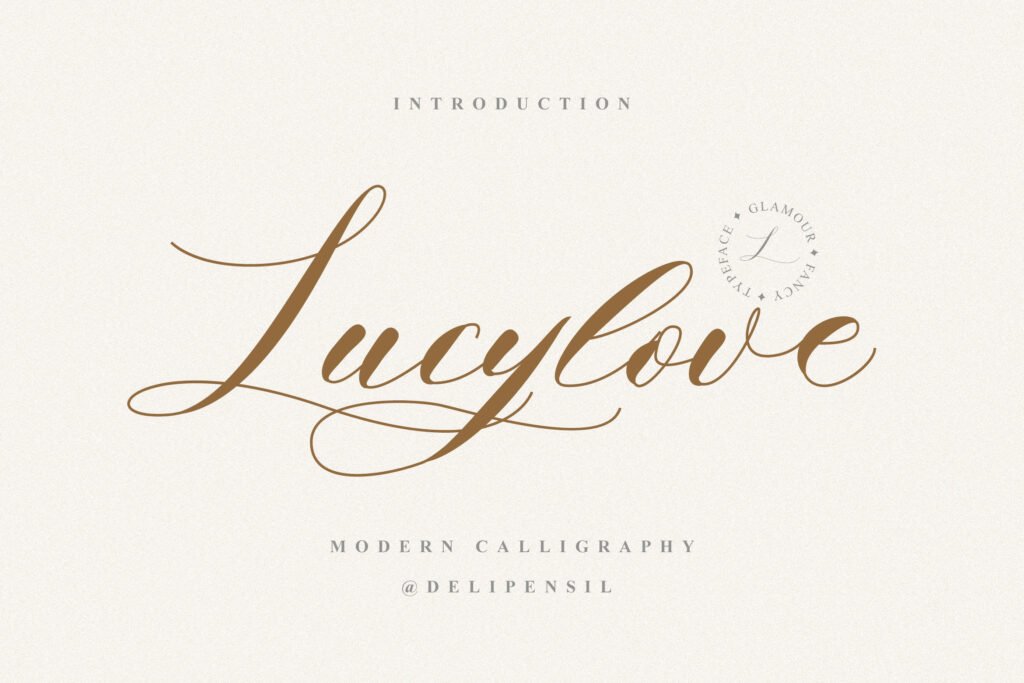
Lucylove Font
Lucylove is a lovely and timeless calligraphy font. It is the best choice for creating eye catching logos, branding and quotes. Every letter has a unique and beautiful touch, which will make your design come alive!
Lucylove Modern Calligraphy Font